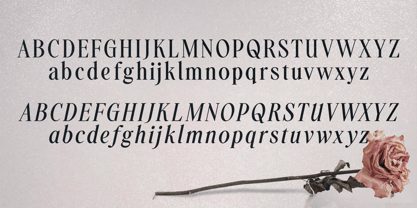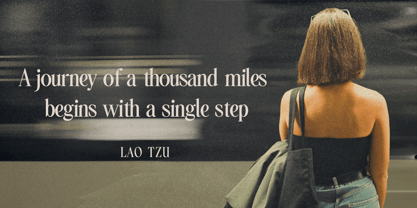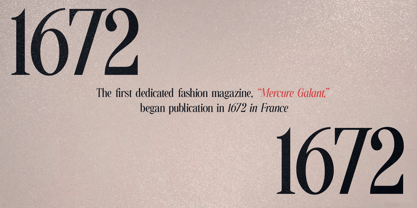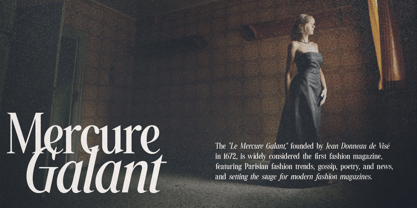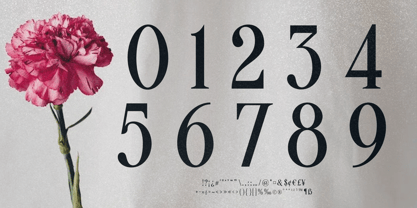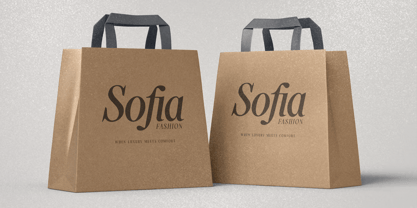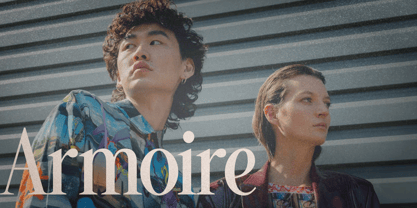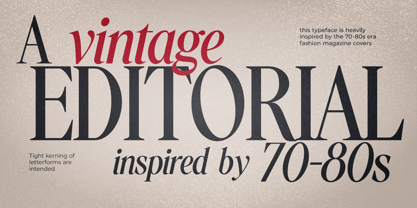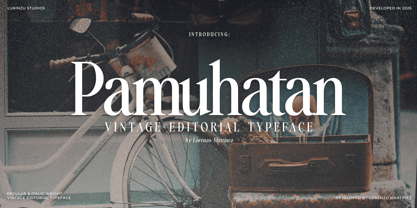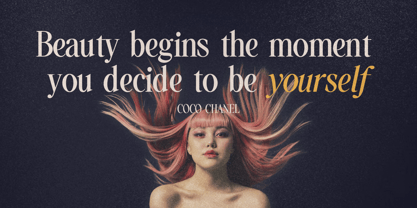
Pamuhatan
The Pamuhatan Font Family was designed by Lorenzo Gabriel Martinez and published by Lurinzu Studios. Pamuhatan contains 2 styles. More about this family
Pamuhatan is a vintage editorial typeface inspired by early high-fashion magazine covers. With its sophisticated style and tight kerning, it captures the luxurious, high-end feel of old-fashioned magazine titles, while still fitting seamlessly into modern design.
This font is timeless and versatile, making it perfect for:
• Editorial layouts and magazine-style branding
• Fashion campaigns and lookbooks
• Logo design and brand identities
• Posters, flyers, and social media graphics
• Product packaging and luxury labels
✦ Key Features:
• Elegant vintage serif style with a modern twist
• Tight kerning for that classic, high-end editorial look
• True italic forms for that elegant look
• Designed for maximum visual impact in headlines and titles
• Ideal for fashion, beauty, lifestyle, and luxury design themes
Whether you're creating a stylish magazine spread, a chic brand identity, or a bold fashion poster, Pamuhatan gives your design that premium, editorial edge.